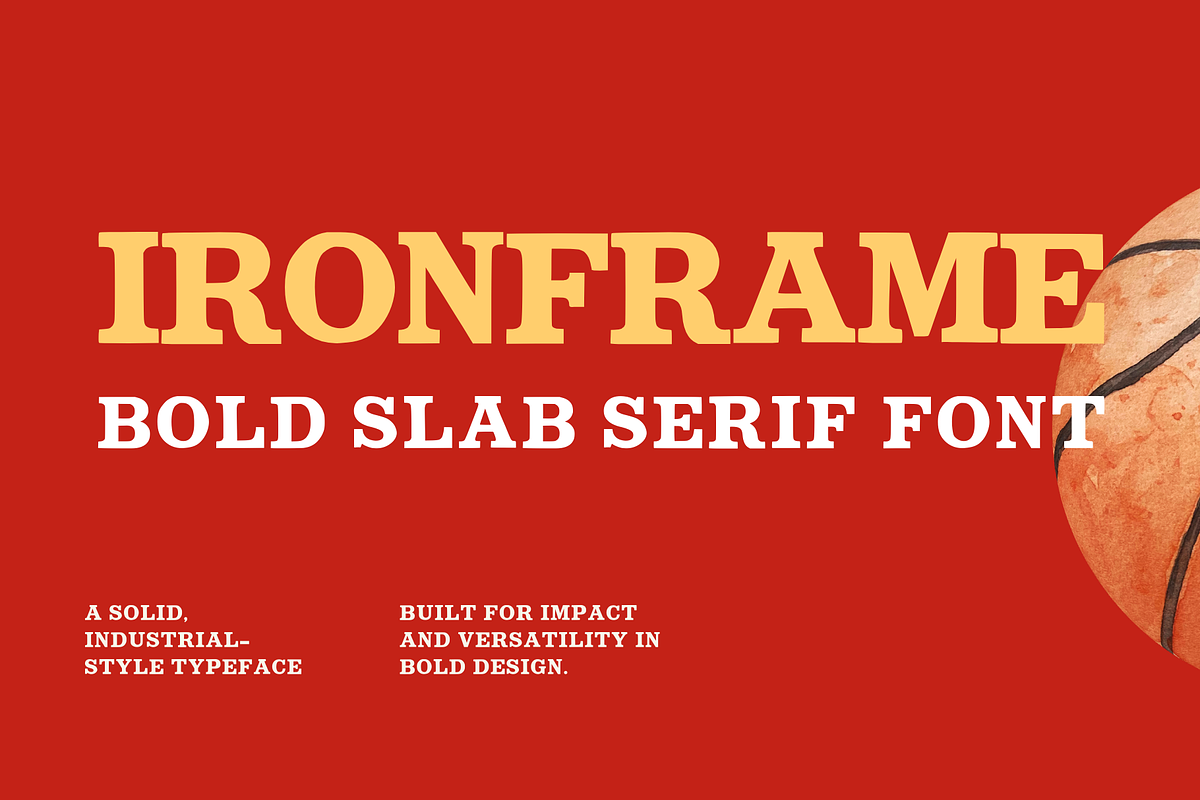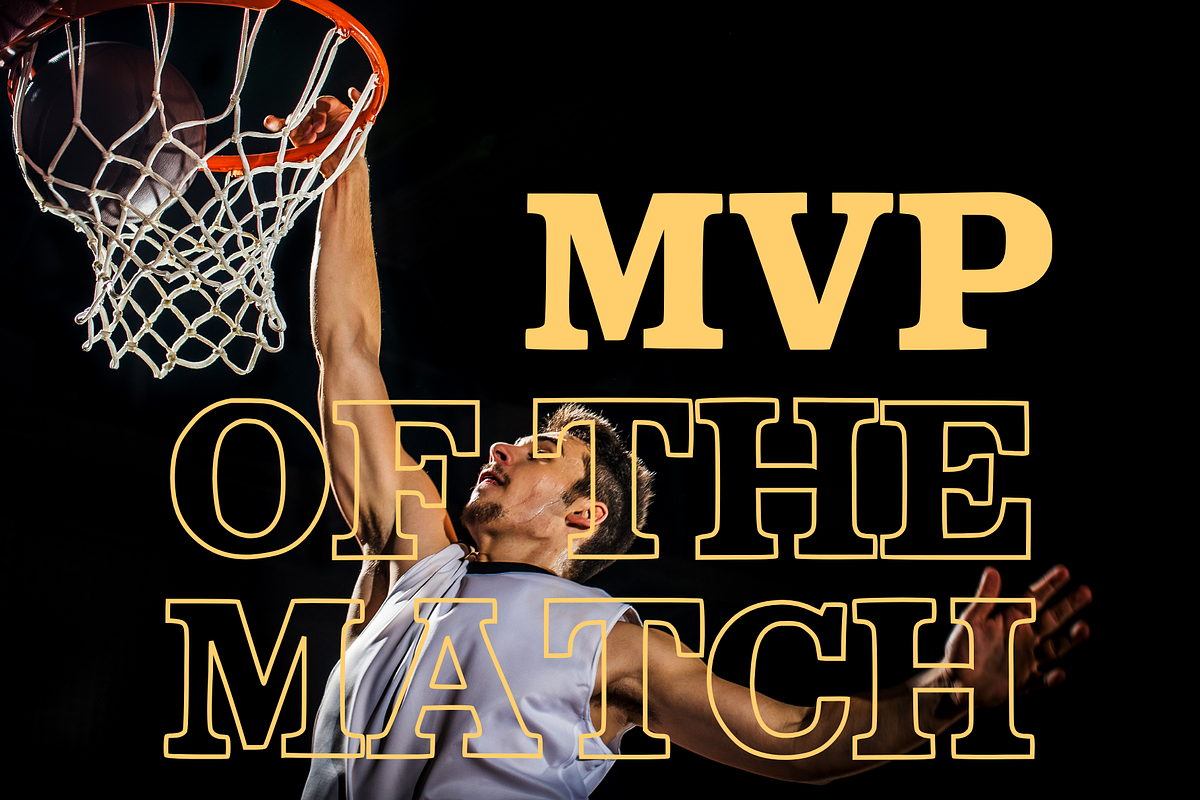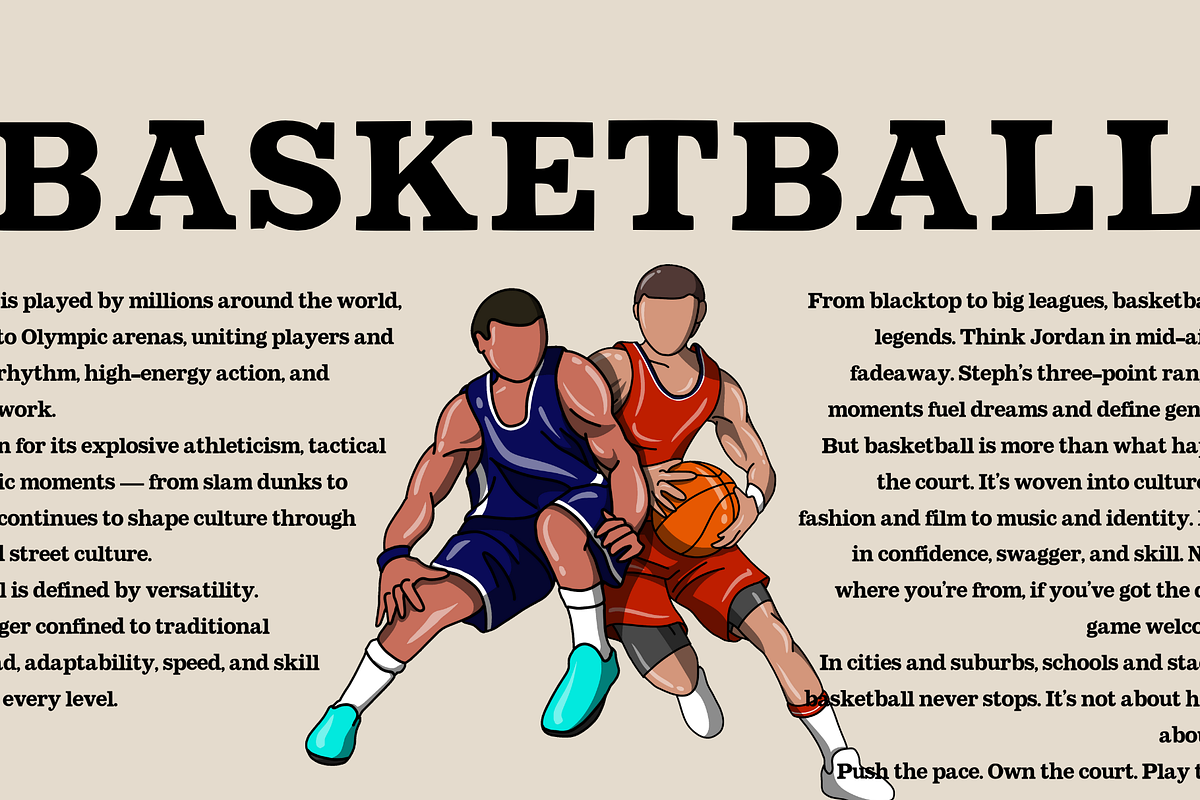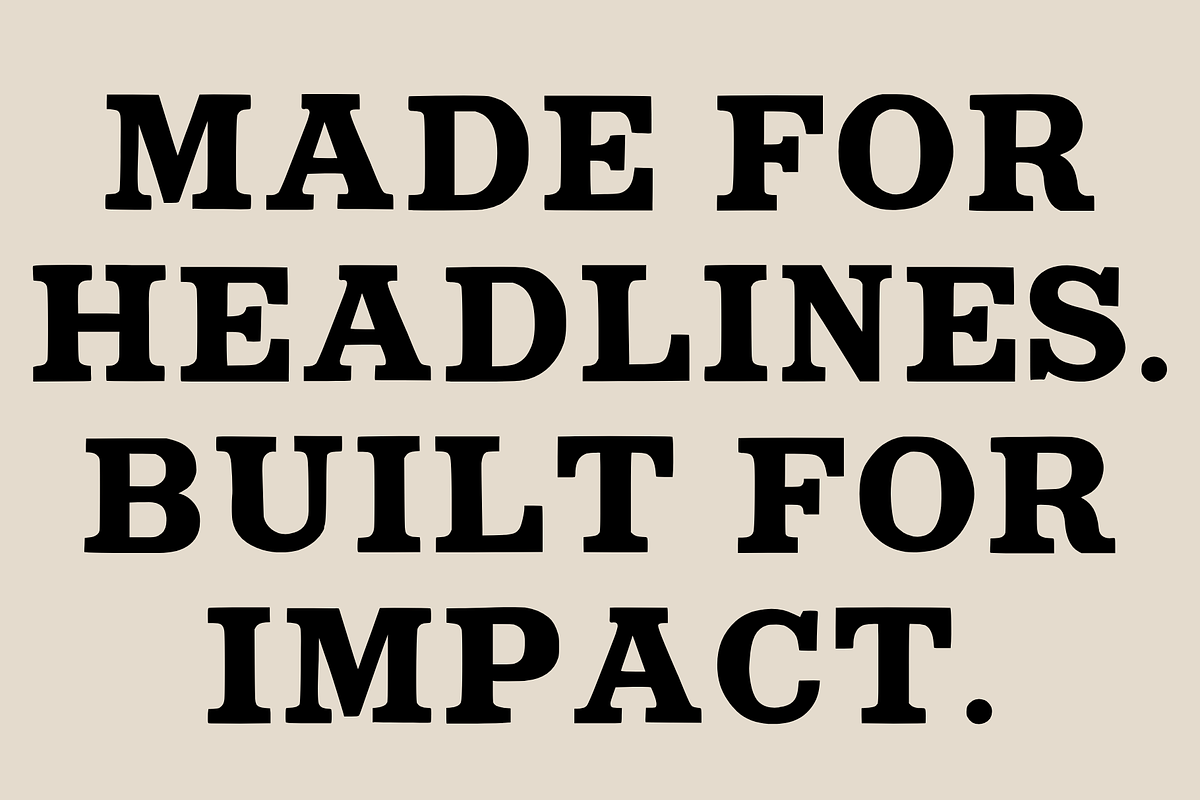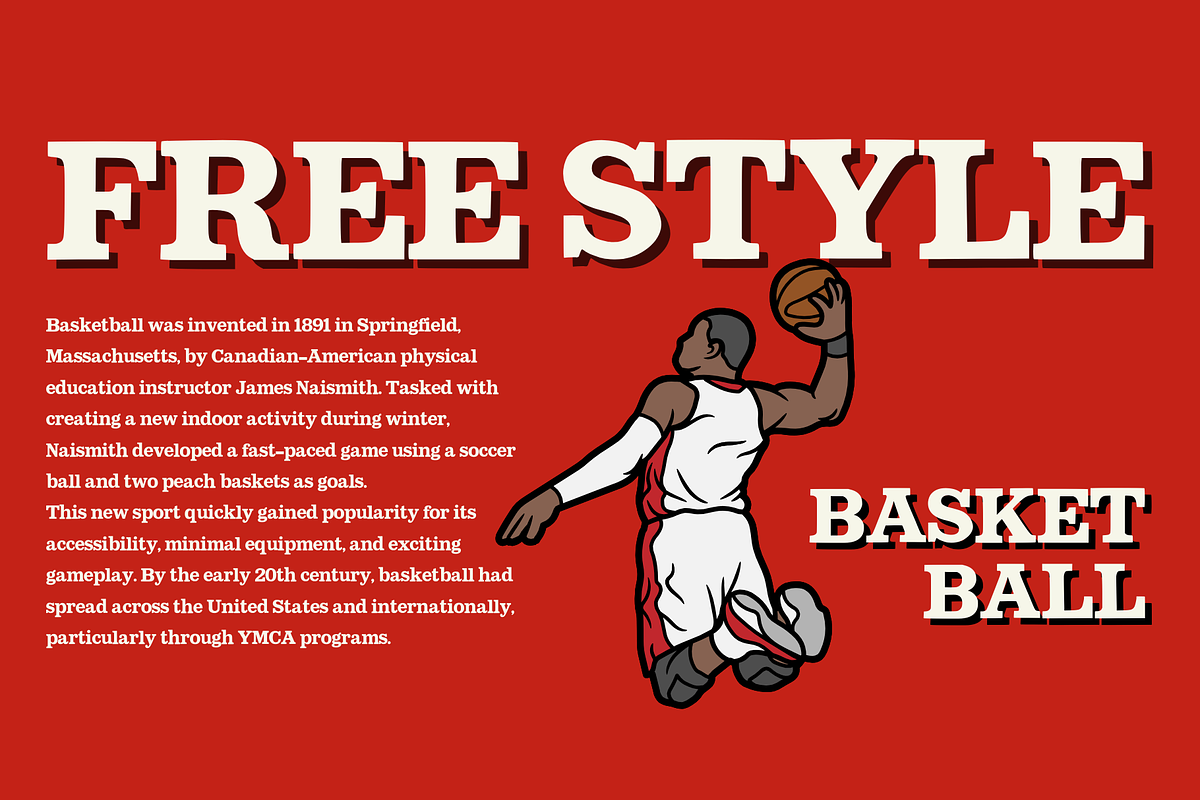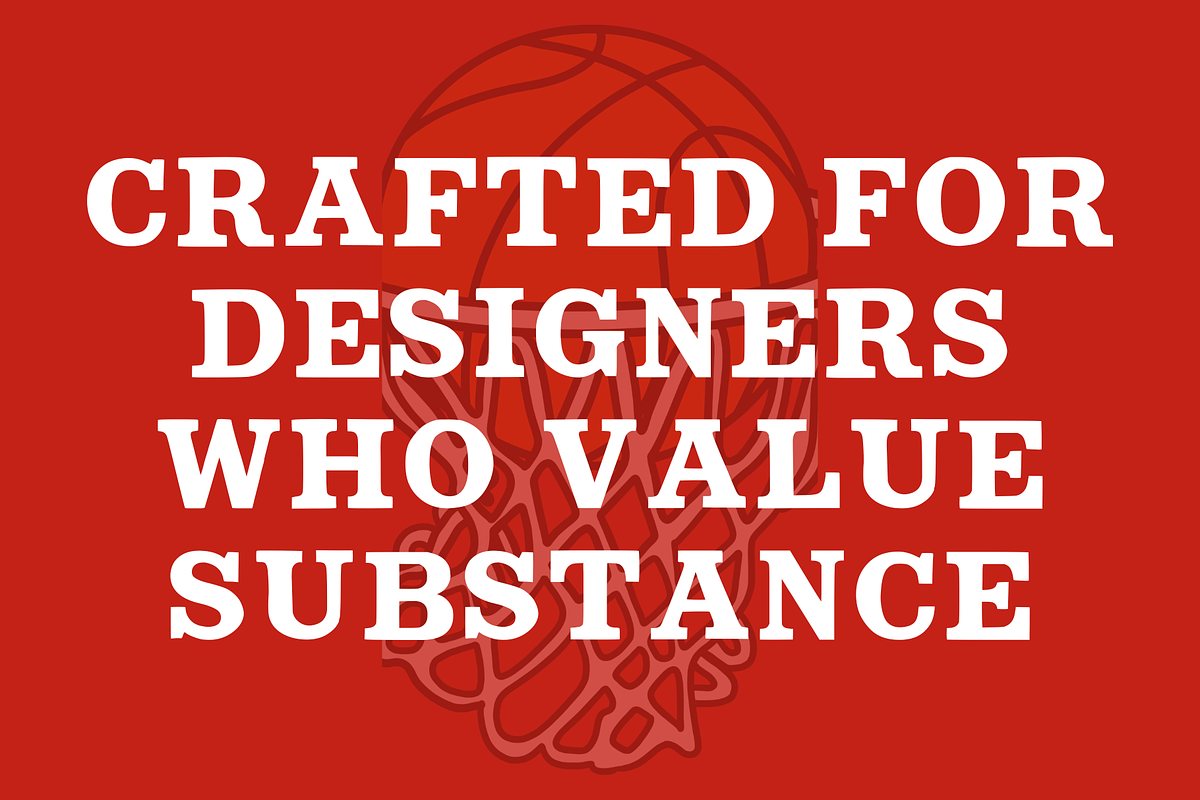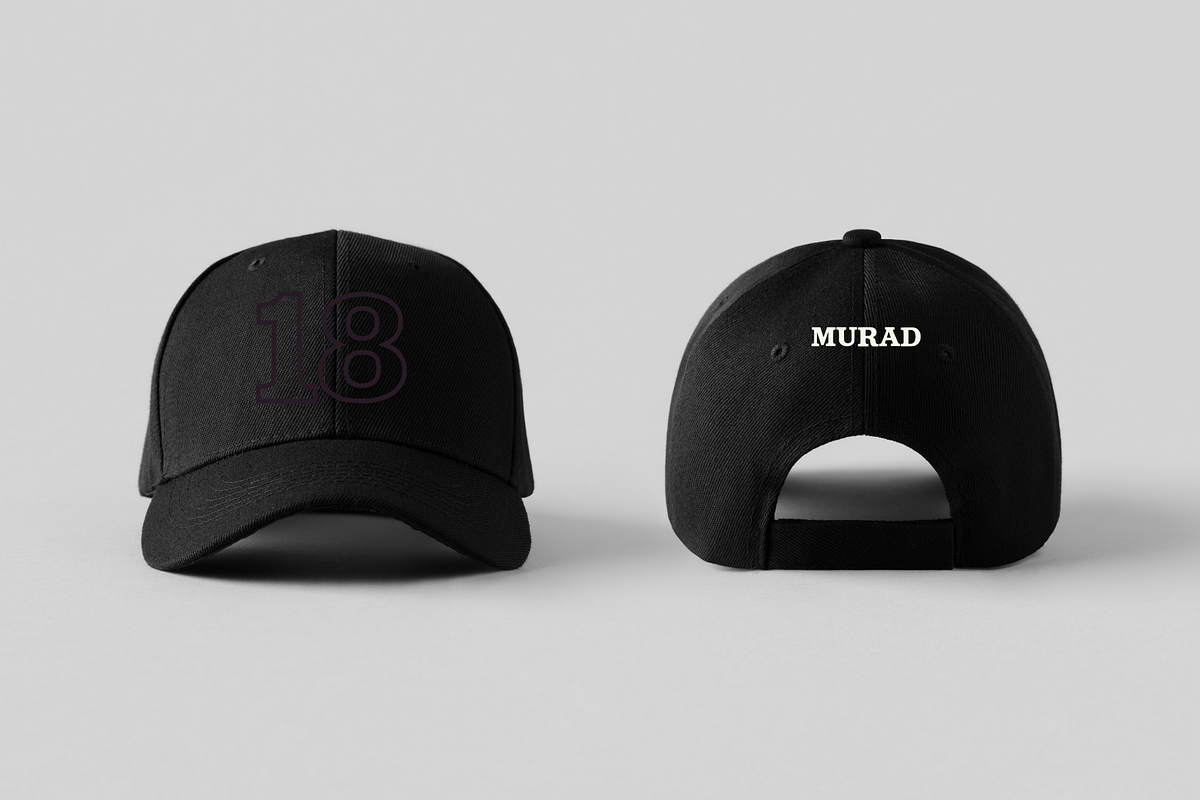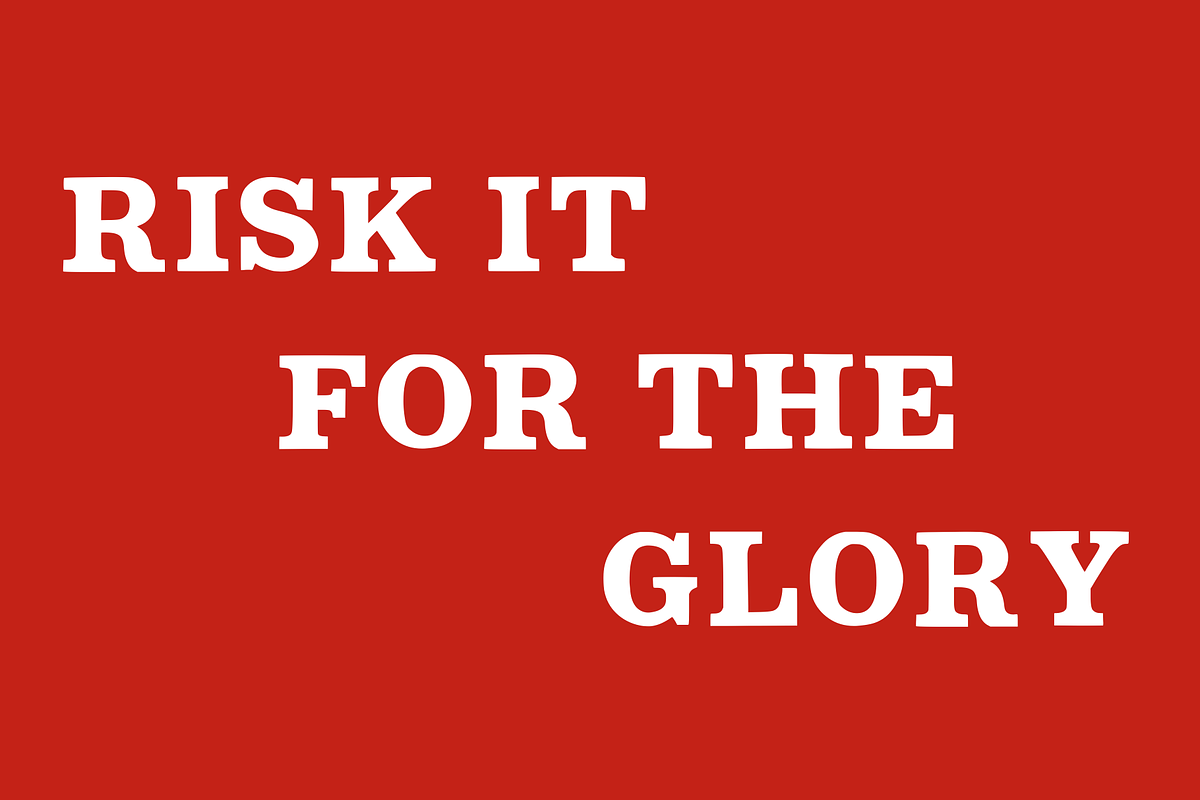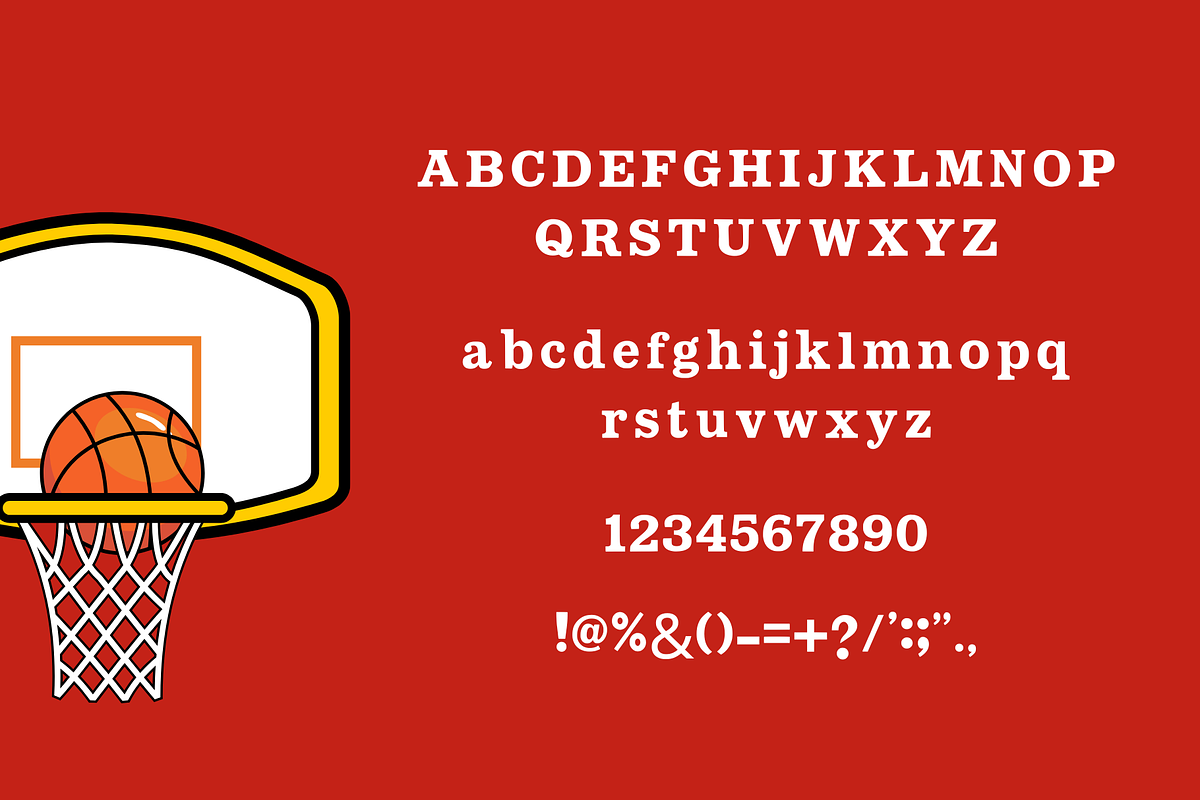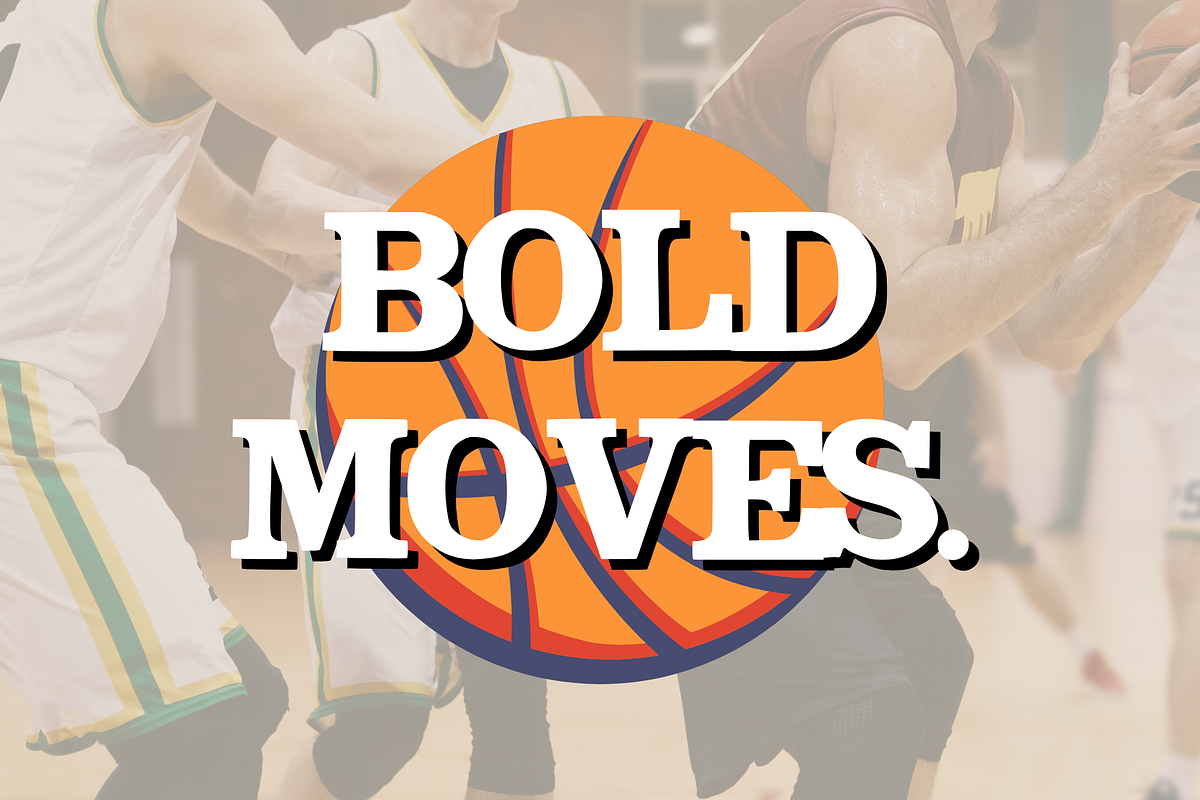
Ironeframe Bold Slab Series
Ironframe Bold Slab Serif Font is a robust, industrial-style typeface designed for maximum impact and versatility. With its solid, strong letterforms, this font stands out in bold designs, making it perfect for headlines, posters, and branding projects. Its unique slab serif structure adds a modern yet timeless appeal, suitable for both digital and print media. Built to inspire, Ironframe delivers a powerful visual presence while maintaining readability and adaptability across various creative applications